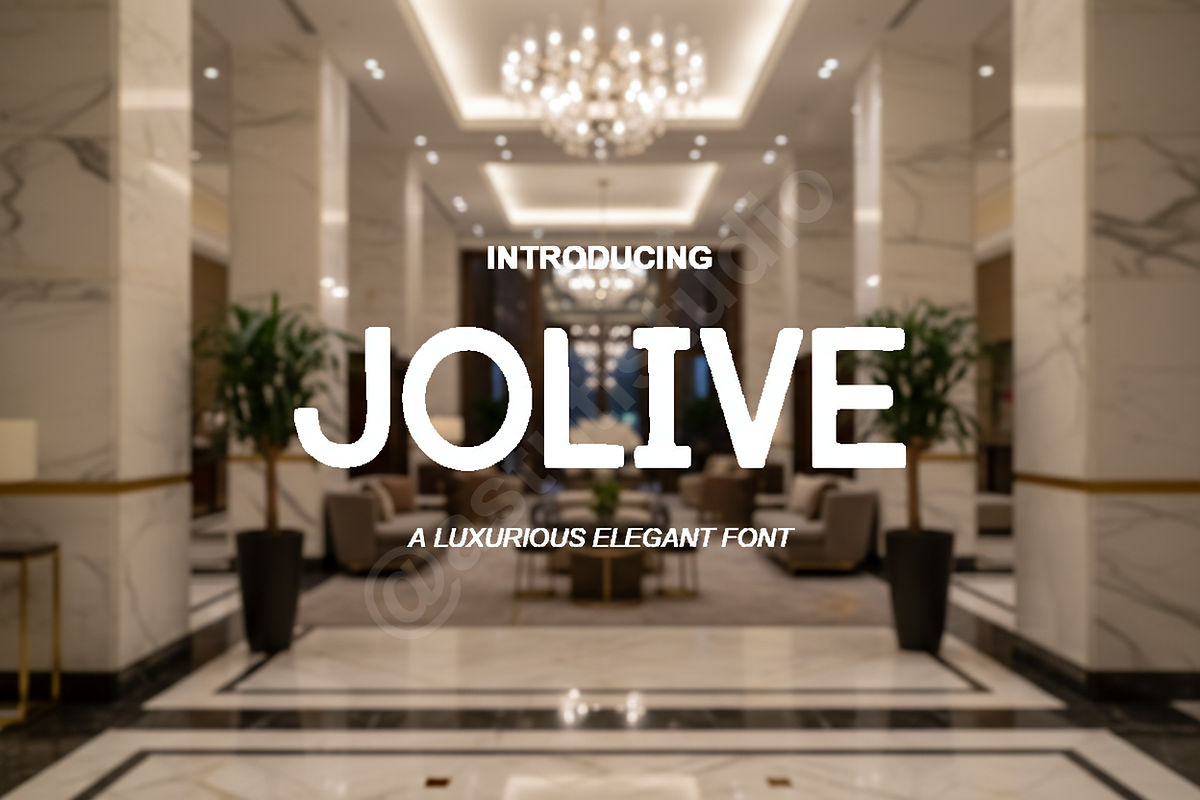
Jolive | Sophisticated Serif for Lux
JOLIVE - AN ELEGANT SERIF TYPEFACE
Introducing Jolive, a refined and timeless serif typeface meticulously crafted for high-end studio projects. Balancing classic proportions with modern, sharp details, Jolive evokes a sense of quiet luxury and effortless sophistication. It is designed to elevate your visual identity, making it the perfect choice for projects that demand a premium touch.
- Elegant high-contrast strokes for a polished look
- Clean, legible letterforms suitable for both print and digital
- Sophisticated ligatures and alternates for custom character
- Optimized for luxury branding, editorial layouts, and high-end social media content